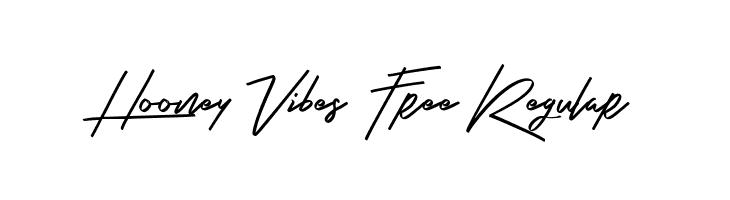
A bold, three-dimensional font with a shadow effect, perfect for impactful designs.
A playful, energetic handwritten font with irregular strokes and dynamic flow.
A graceful monoline script font with smooth, flowing lines and consistent stroke width.
A flowing, cursive font with an elegant, handwritten style.
A bold, brush-style font with dynamic, expressive strokes.
A cursive, handwritten font with a dynamic and flowing style.
A playful, handwritten font with rounded, casual letterforms.
A bold, brush-stroke font with dynamic and energetic styling.
A delicate, handwritten script font with fluid, connected strokes.
A dynamic, expressive handwritten font with fluid, spontaneous strokes.
A lively, expressive handwritten font with dynamic strokes and a personal touch.
A bold, brush-style font with dynamic and energetic strokes.
A fluid, elegant script font with a natural handwritten style.
A bold, energetic brush-style font with dynamic strokes and a hand-drawn appearance.
A bold, playful script font with a hand-drawn, whimsical style.
A bold, brush-style font with dynamic, slanted strokes and sharp angles.
A bold, brush-style font with dynamic and expressive strokes.
A tall, narrow font with a playful and modern style.
A lively, handwritten script font with fluid, connected strokes.
A lively and elegant script font with a modern, handwritten style.
A bold, brush-style font with dynamic and expressive strokes.
A bold, handwritten font with a playful and dynamic style.
A playful, handwritten font with smooth, rounded edges and a casual style.
A casual, handwritten font with smooth, flowing lines and a personal touch.
A bold, energetic brush-style font with a dynamic and expressive appearance.
A playful, handwritten font with a casual and friendly appearance.
A playful, casual handwritten font with smooth, rounded edges.
A bold, brush-style font with dynamic and expressive strokes.
A cursive, handwritten font with elegant, flowing lines.
A modern, geometric font with parallel line detailing.
A playful and friendly font with rounded, smooth letters and consistent stroke thickness.
A bold, brush script font with dynamic and expressive strokes.